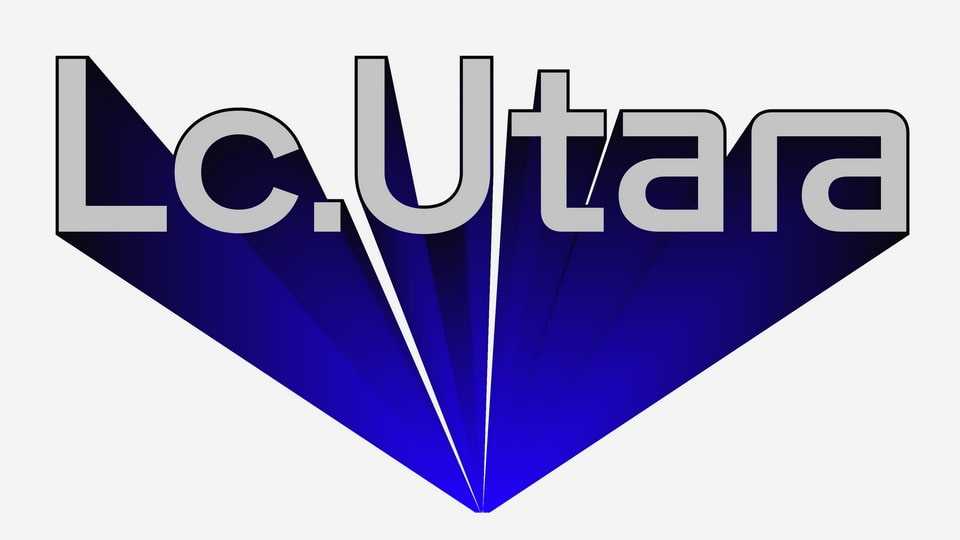
Download LC Utara font, a contemporary sans serif typeface with a geometric touch and strong personality. The unique design brings energy and makes Utara font suitable for eye-catching typography.